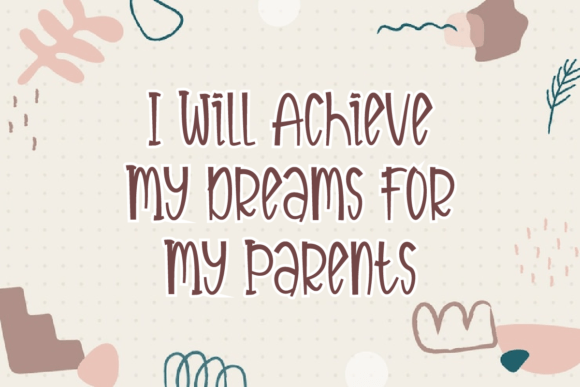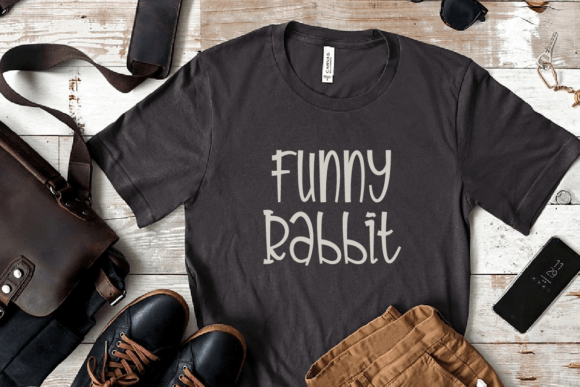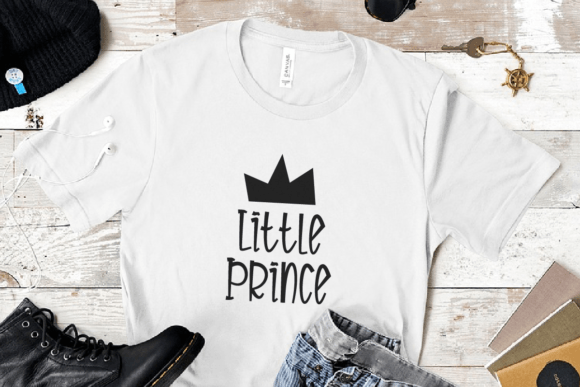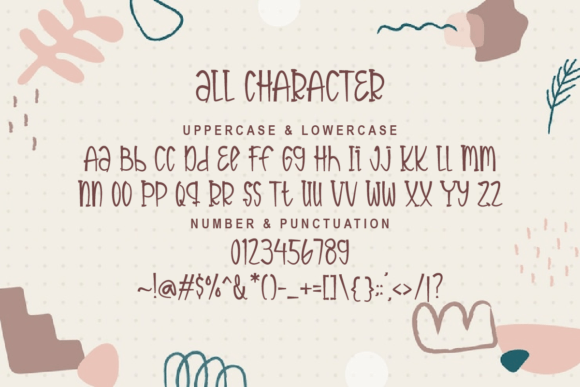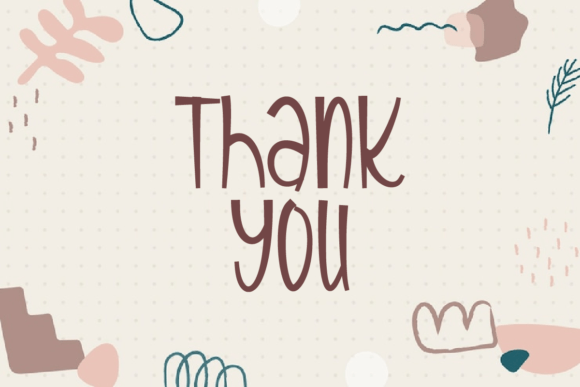
The Ultimate Guide to Funny Rabbit Font: A Playful Display Font for Kids’ Designs
I’ll never forget the time I was working on a children’s party invitation design, and I just couldn’t find the right font to match the playful theme. The client wanted something fun, quirky, and engaging, but everything I tried seemed either too boring or too over-the-top. That’s when I stumbled upon the Funny Rabbit font, and it instantly brought the design to life! In this article, I’ll share my experience with this delightful font, its features, and how to make the most of it in your designs.
An Honest Review of Funny Rabbit Font
What I Love About Funny Rabbit Font ✨
- 😊 Playful and quirky design that’s perfect for kids’ themed projects
- ✅ Highly legible, even at smaller sizes
- 🎨 Great for combining with bright colors to create eye-catching designs
- 👍 Easy to pair with other fonts for a unique visual hierarchy
- ⚠️ Limited use outside of children’s designs or playful themes, as it may not fit more formal projects
- 😬 Some letters may appear a bit irregular or imperfect, but this adds to its charm
The Backstory of Funny Rabbit Font
Funny Rabbit Font was designed by a creative team that wanted to create a playful and engaging font for children’s designs. Inspired by the whimsy of illustration and the world of kids’ books, they crafted a font that’s both fun and legible. The design process involved experimenting with different shapes and lines to create a unique and quirky feel.
Q: What type of designs is Funny Rabbit Font best suited for?
A: Funny Rabbit Font is perfect for children’s themed designs, such as party invitations, kids’ books, and nursery decor.
Q: Is Funny Rabbit Font available in different styles or weights?
A: Currently, Funny Rabbit Font is available in a single style, but its versatility and playfulness make it easy to pair with other fonts for a unique look.